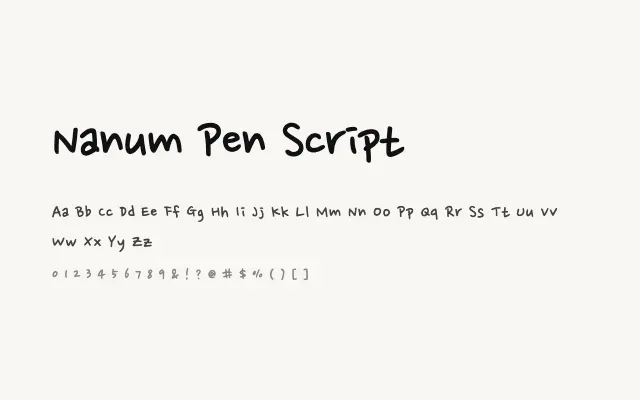
Nanum Pen Script
A lively brush script that captures the spontaneity of Korean handwriting with genuine warmth.
Nanum Pen Script replicates the fluid, uneven quality of writing with a felt-tip pen, making it feel personal and immediate. It works well for informal headings, social content, and any context where approachability matters. Its dual support for Korean and Latin scripts makes it particularly valuable for bilingual Korean design work.
A casual, brush-drawn script designed specifically for Korean and Latin text, mimicking the look of handwriting with a felt-tip or brush pen. Letterforms are loose and energetic with natural stroke variation.